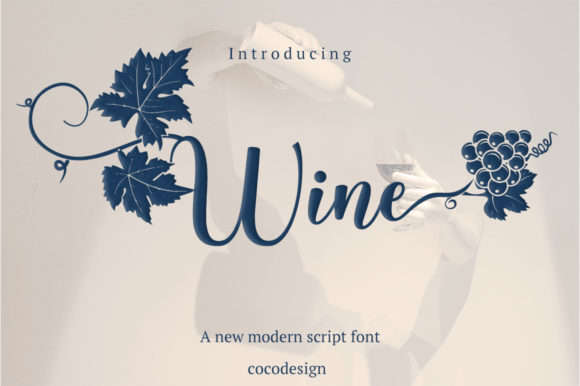
Looking for the perfect font for your next project or event? Look no further than Wine Font! Created by cocodesign, this modern calligraphy font is sure to elevate any design. Its decorative vines add a touch of elegance, making it the perfect choice for wedding invitations, logos, and product packaging.
What sets Wine Font apart from other decorative fonts is its casual yet beautiful swash. This unique feature adds a personal touch to any project, making it stand out from the crowd. Whether you're designing book covers, posters, or quotes, Wine Font is the perfect choice for any creative endeavor.
One of the best features of Wine Font is its versatility. Not only is it a great option for wedding invitations and branding, but it can also be used for headlines, signage, labels, and signatures. The possibilities are endless!
When it comes to finding the best fonts for wedding videos, Wine Font should be at the top of your list. Its elegant design and decorative vines add a touch of romance to any video, making it the perfect choice for capturing those special moments.
So why choose Wine Font? Its unique design, versatility, and elegant swash make it the perfect choice for any project, from logos to wedding invitations to book covers. Download Wine Font today and elevate your design to the next level!